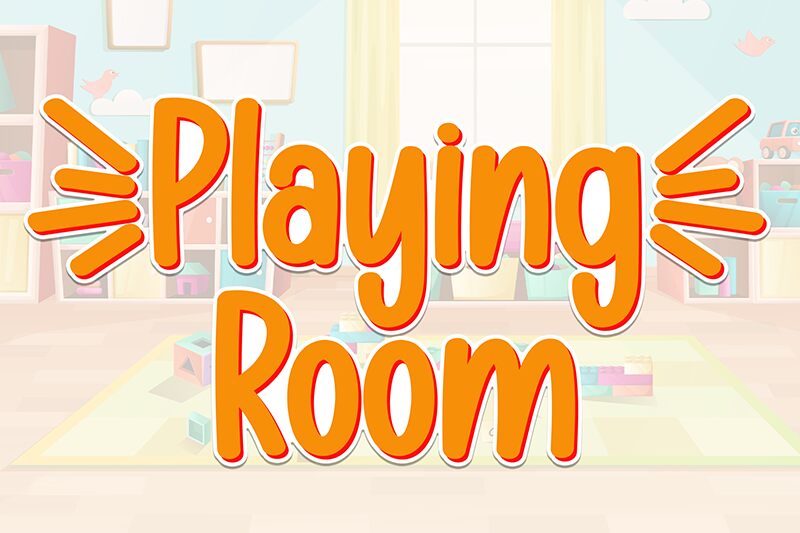
Playing Room
Playing Room font by Scratchones is a handwritten font with a condensed width and a modern appeal. Its rounded, friendly, and approachable casual aesthetic gives it the power to blend into many design styles. The characters stand boldly while maintaining charm and simplicity making this free handwritten font fitting for various branding projects.